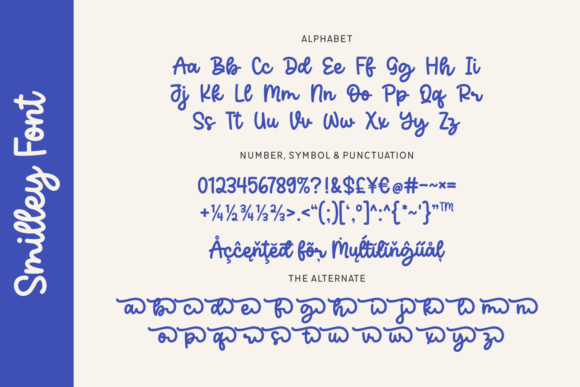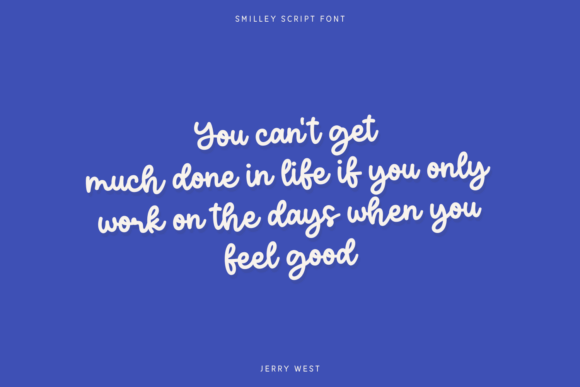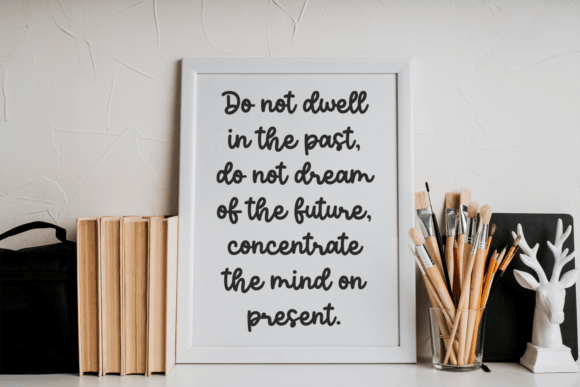
Have you ever found yourself stuck in front of your computer, searching for the perfect font to give your design that extra oomph? It’s a frustrating feeling, especially when you’re working on a project that requires a specific aesthetic. But what if I told you that there’s a font that can solve all your design woes? Meet the Smilley Font, a cheerful and simple monoline script font that’s sure to bring a smile to your face.
As a designer, you know how valuable a high-quality design resource can be. The Smilley Font is a game-changer, offering a clean and modern design that’s perfect for branding, logos, product packaging, social media graphics, and more. With its transparent background and free download option, you can easily incorporate it into your next creative project.
- Smilley Font features a transparent background, allowing for easy layering and customization in your design.
- Smilley Font is a unique and playful design that adds a touch of personality to any creative project, making it an ideal resource for designers and artists.
- Smilley Font is a great addition to any design library, providing a fun and creative way to add visual interest to your work.
One of the standout features of this font is its transparent background, making it easy to layer over different backgrounds without any issues. It’s also available for free download, which is a major plus in my book. The font itself is playful and fun, perfect for a variety of creative projects, from social media graphics to posters and flyers.
- High-quality design that’s perfect for a variety of creative projects
- Playful and fun design
However, I do have a few minor complaints. The font can be a bit too playful for some projects, and the character set is limited compared to other fonts. ⚠️
The Smilley Font is a high-quality design resource perfect for adding a touch of creativity to your next project. With its transparent background and versatile style, it’s a great addition to any design collection.